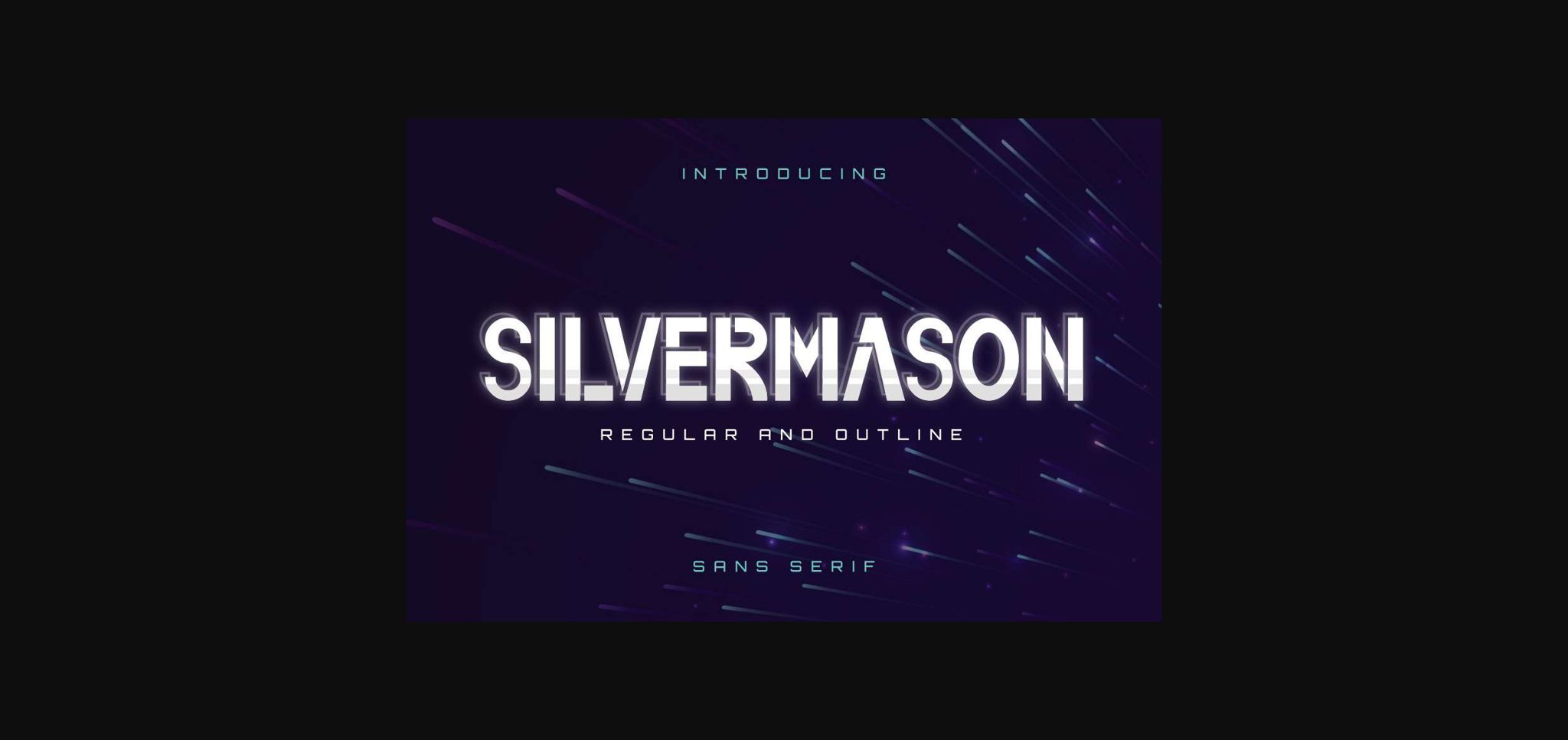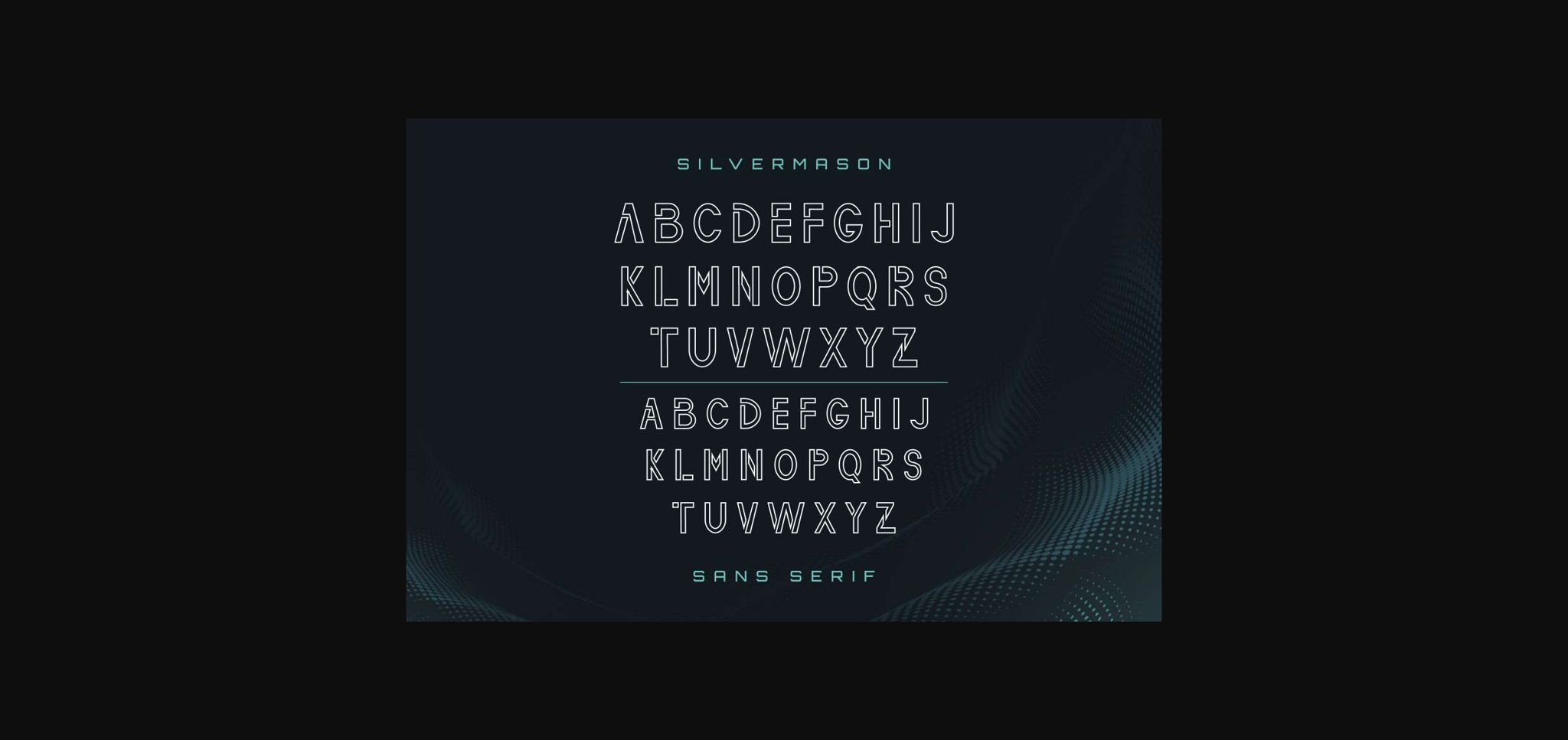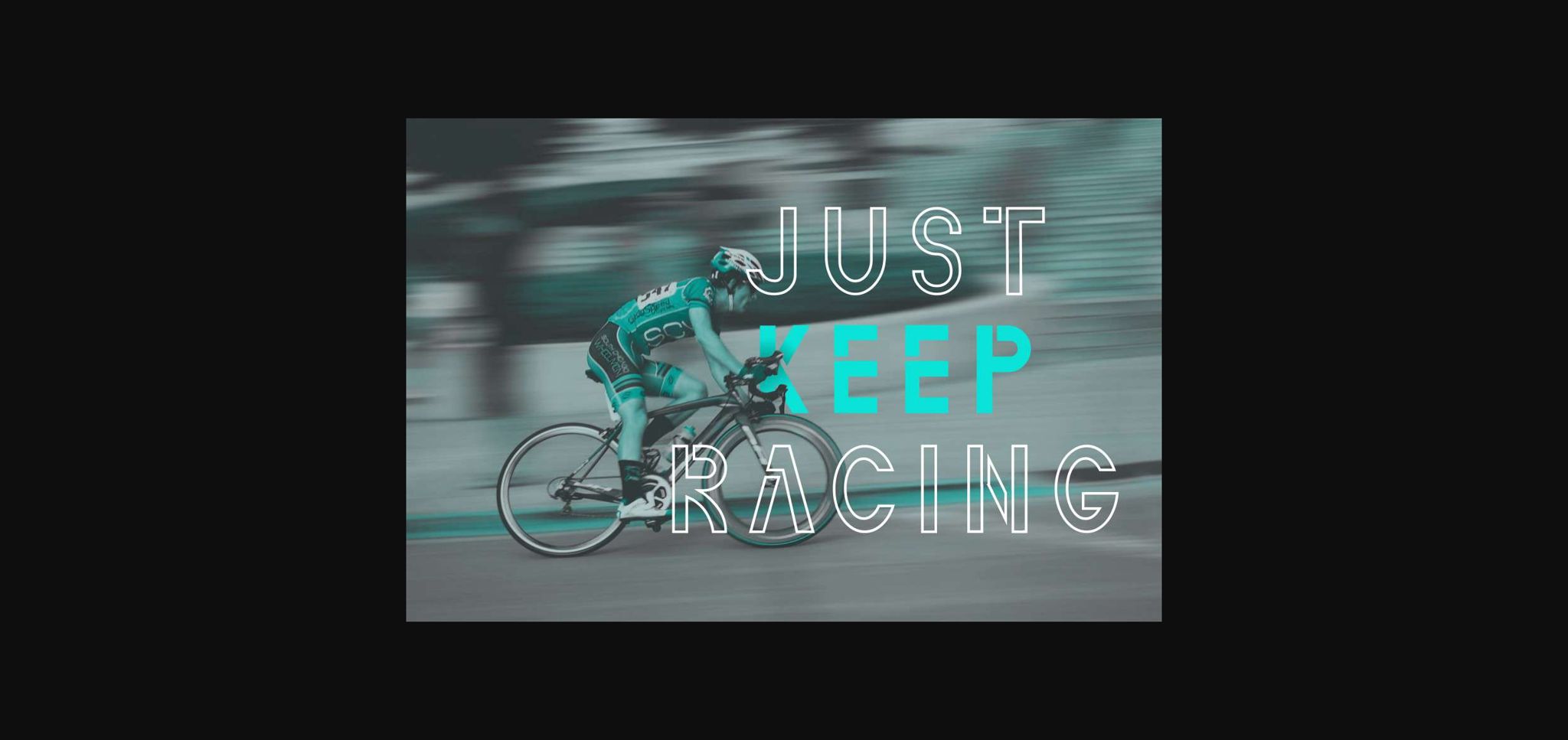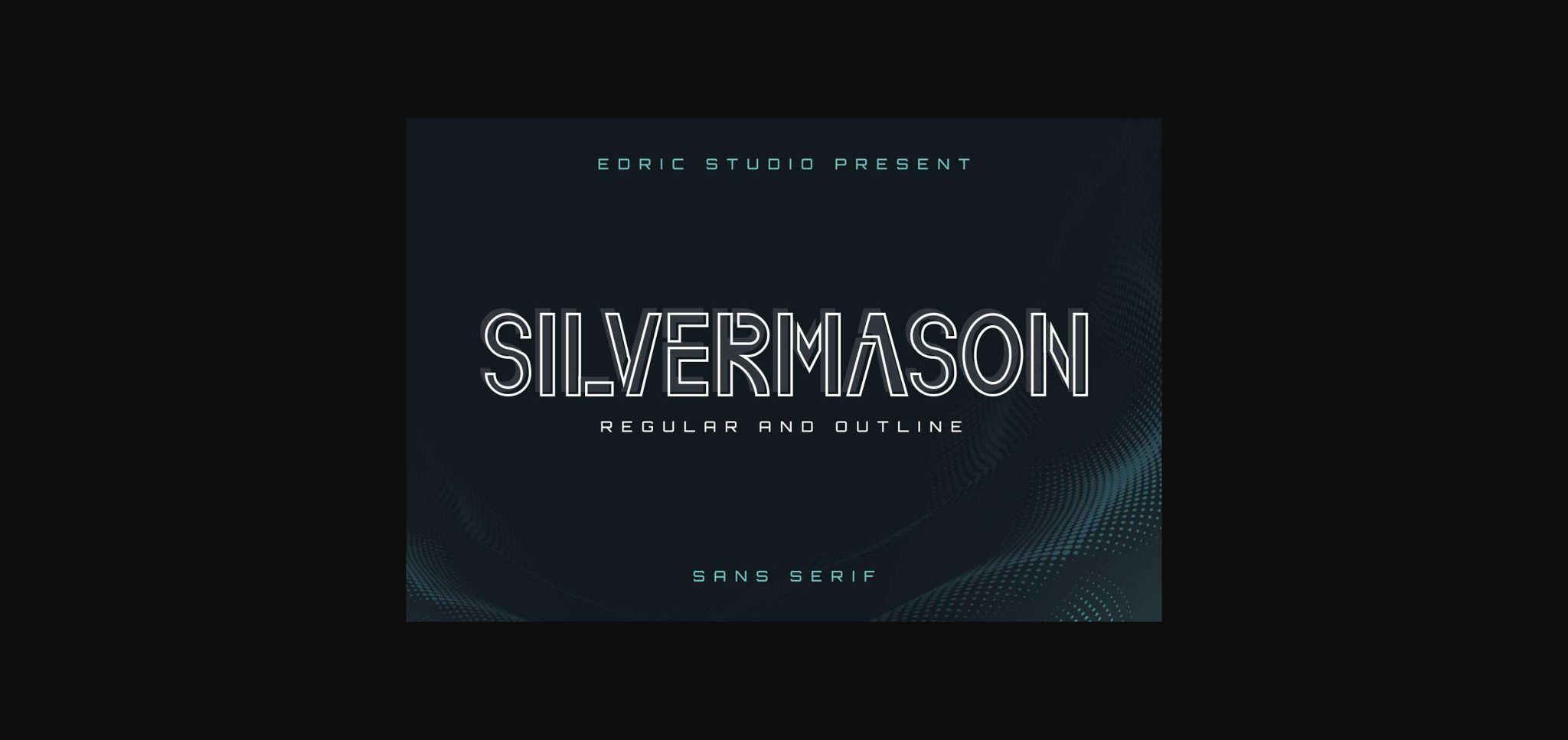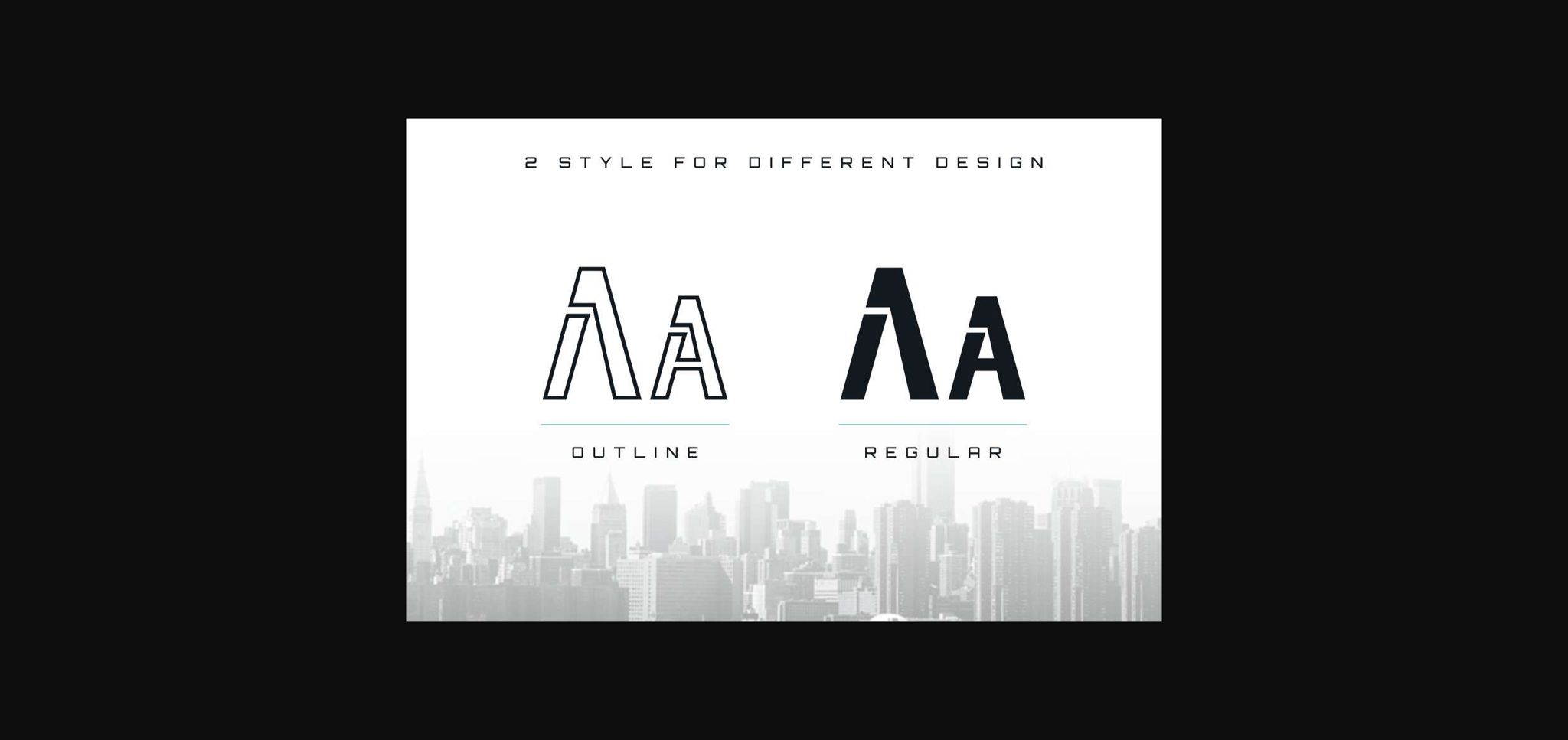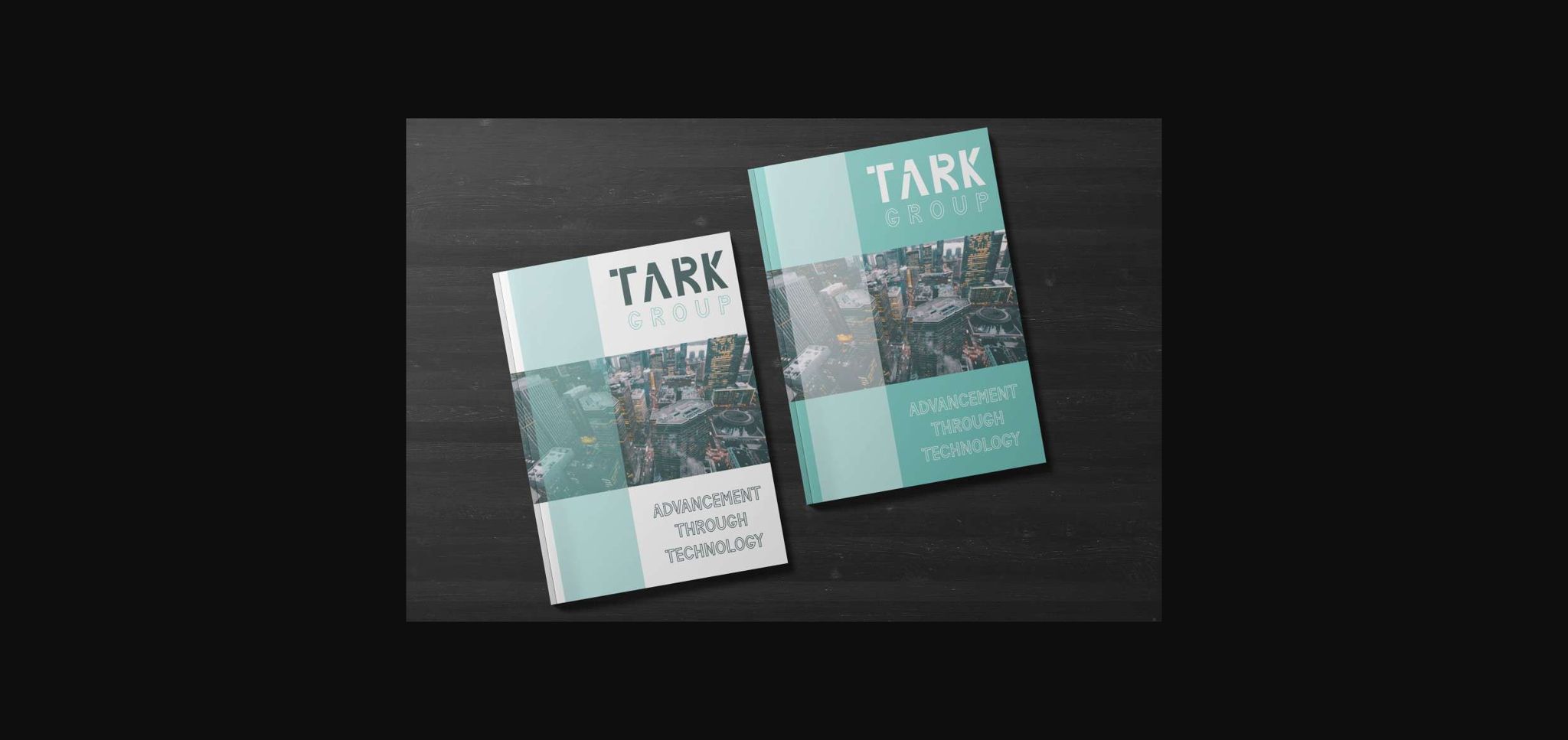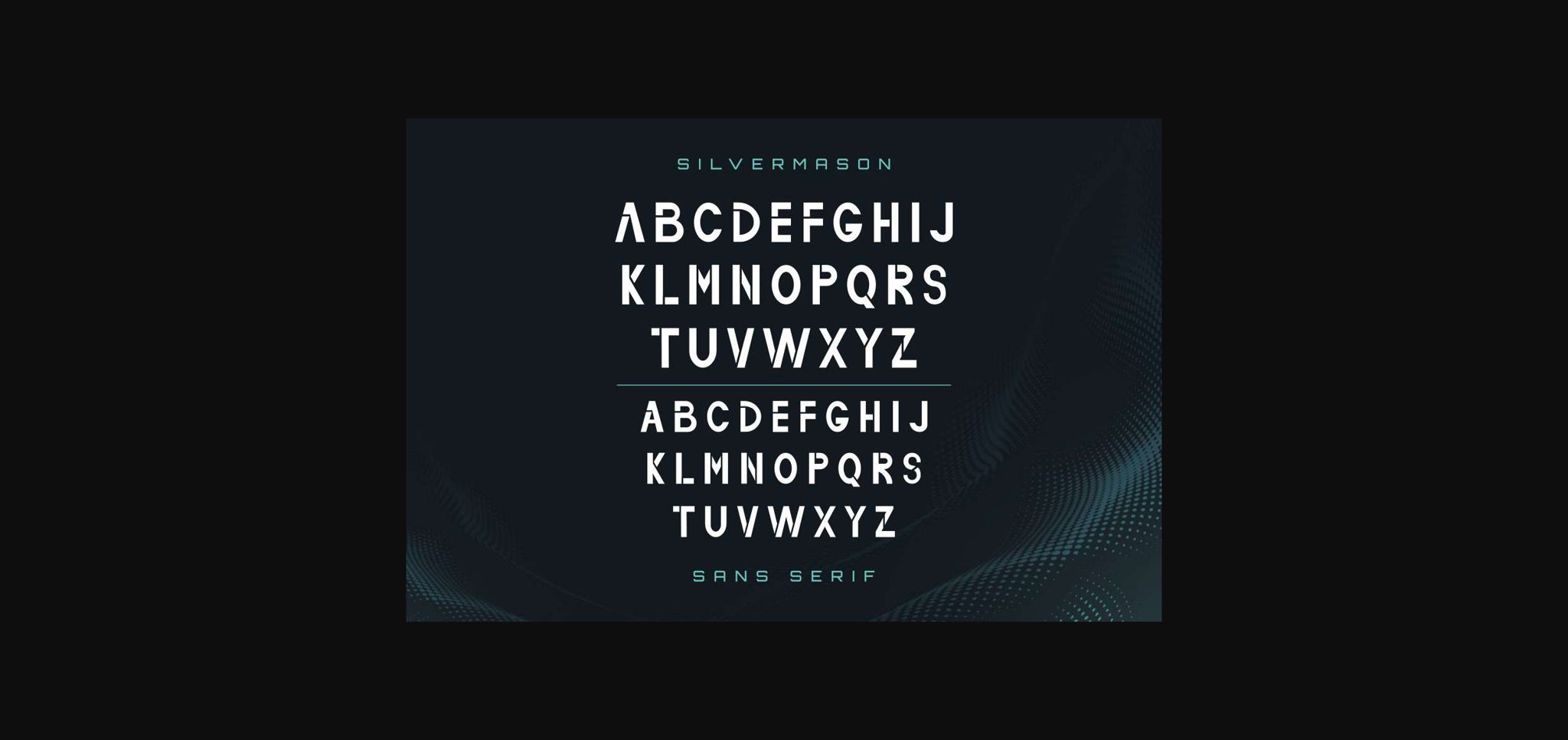
Silvermason Font
About Silvermason Font
Silvermason is a bold, classic sans serif font with an undeniable clean feel. Use it to achieve an exquisite, yet subtle look and maximum versatility.